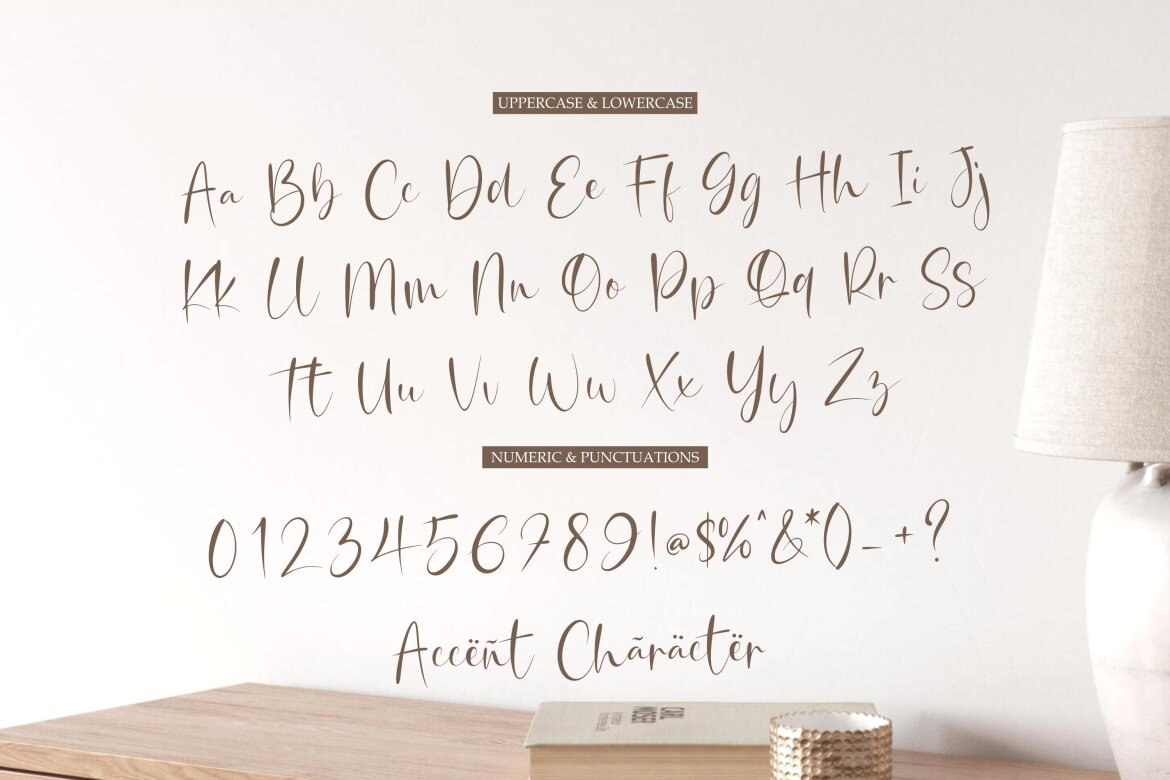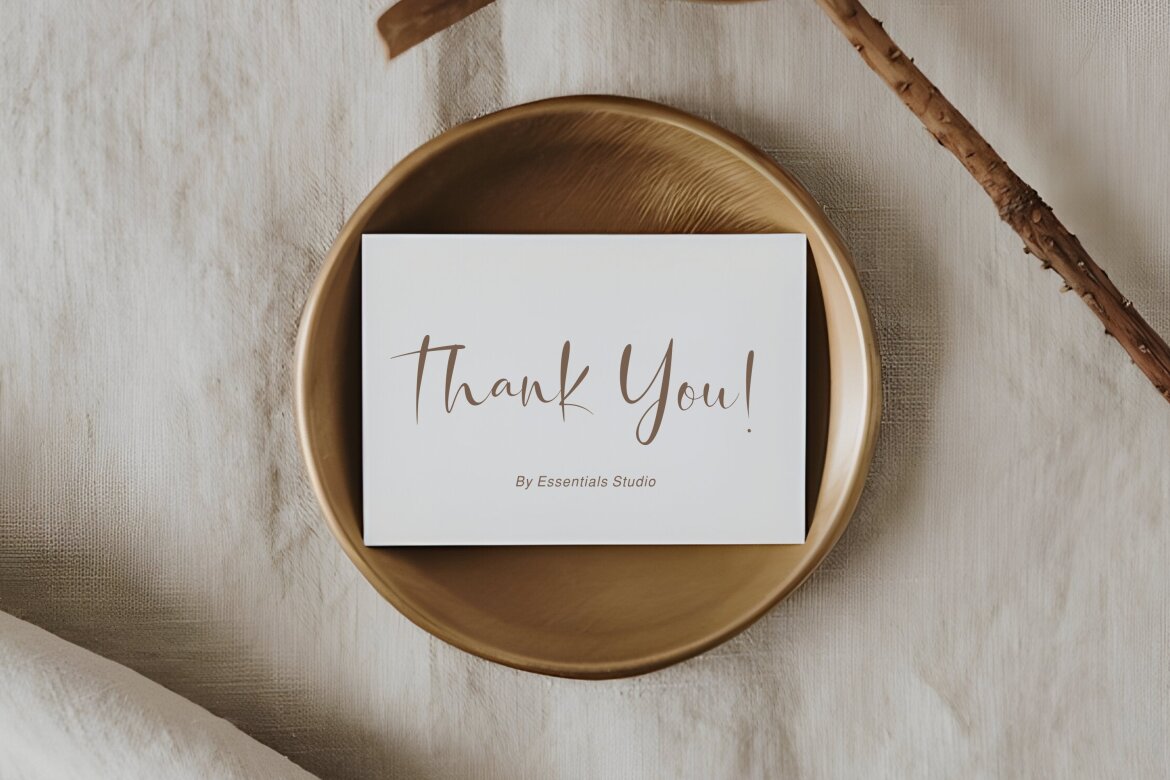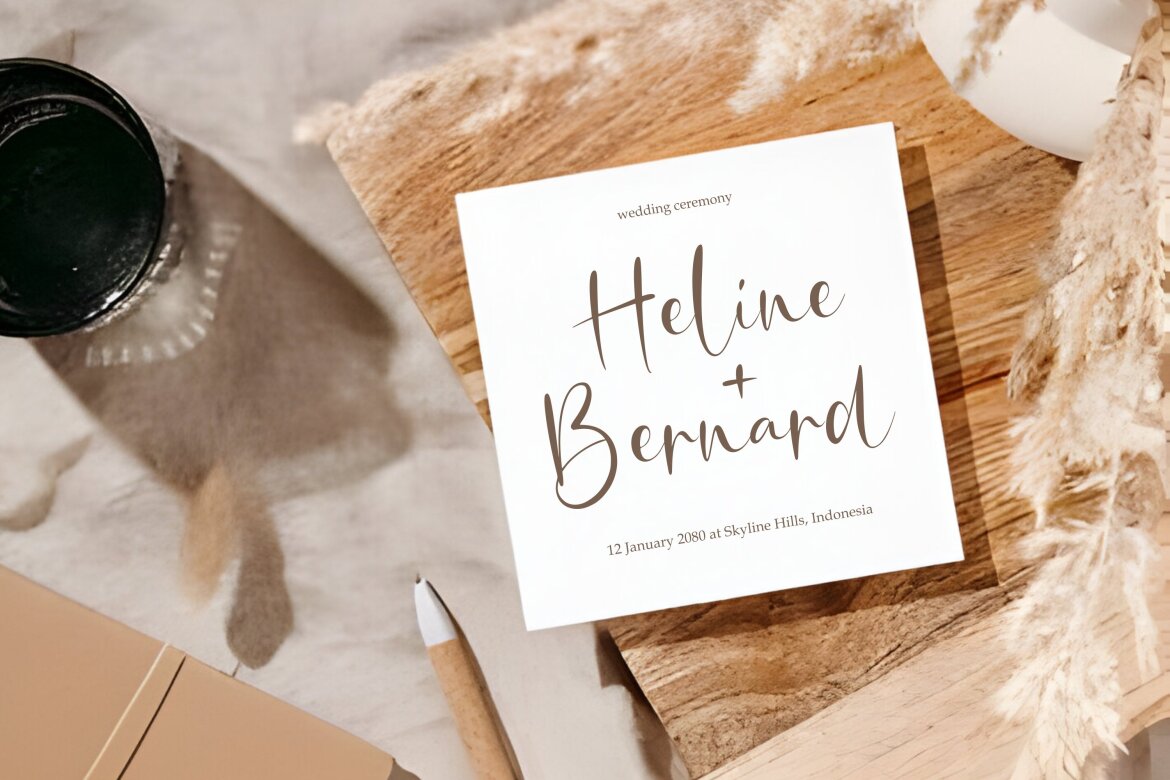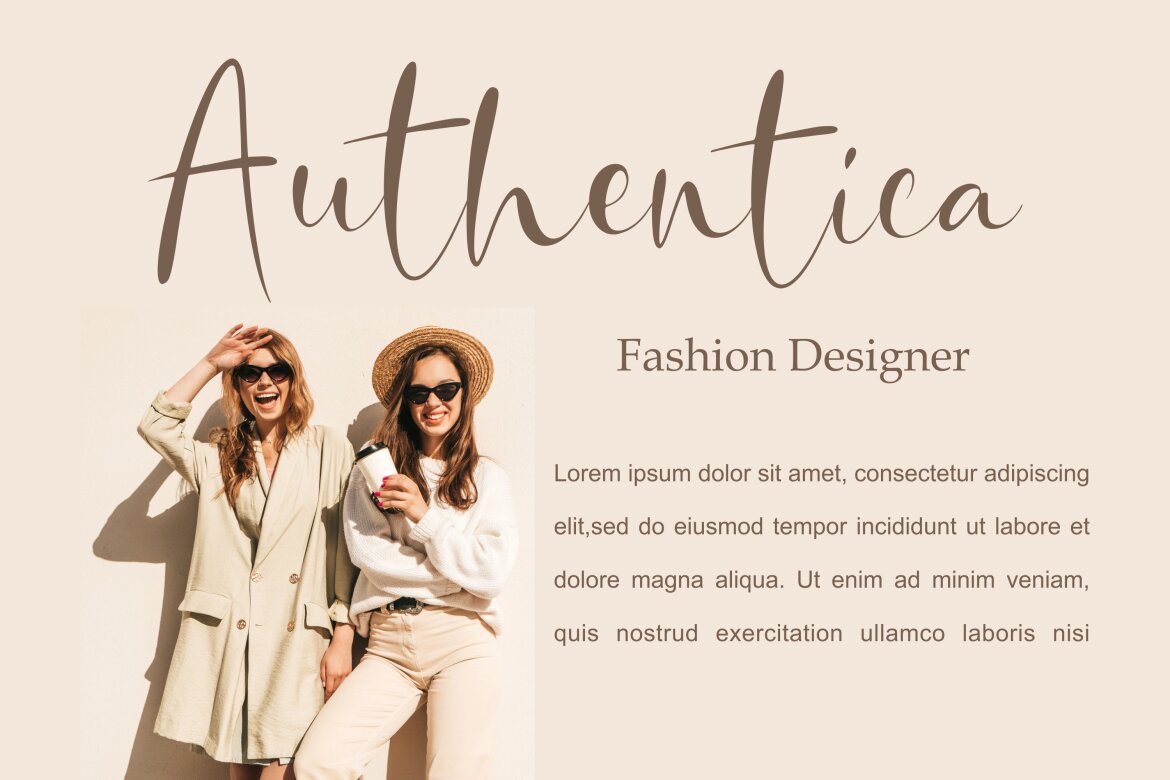
Cristaline - Stylish Script FREE Font
Cristaline is a dazzling handwritten font that exudes charm and elegance. With its fluid strokes and intricate details, it adds a touch of sophistication to any project. Whether used for invitations, branding, or social media graphics, this font captivates with its unique personality and effortless beauty.